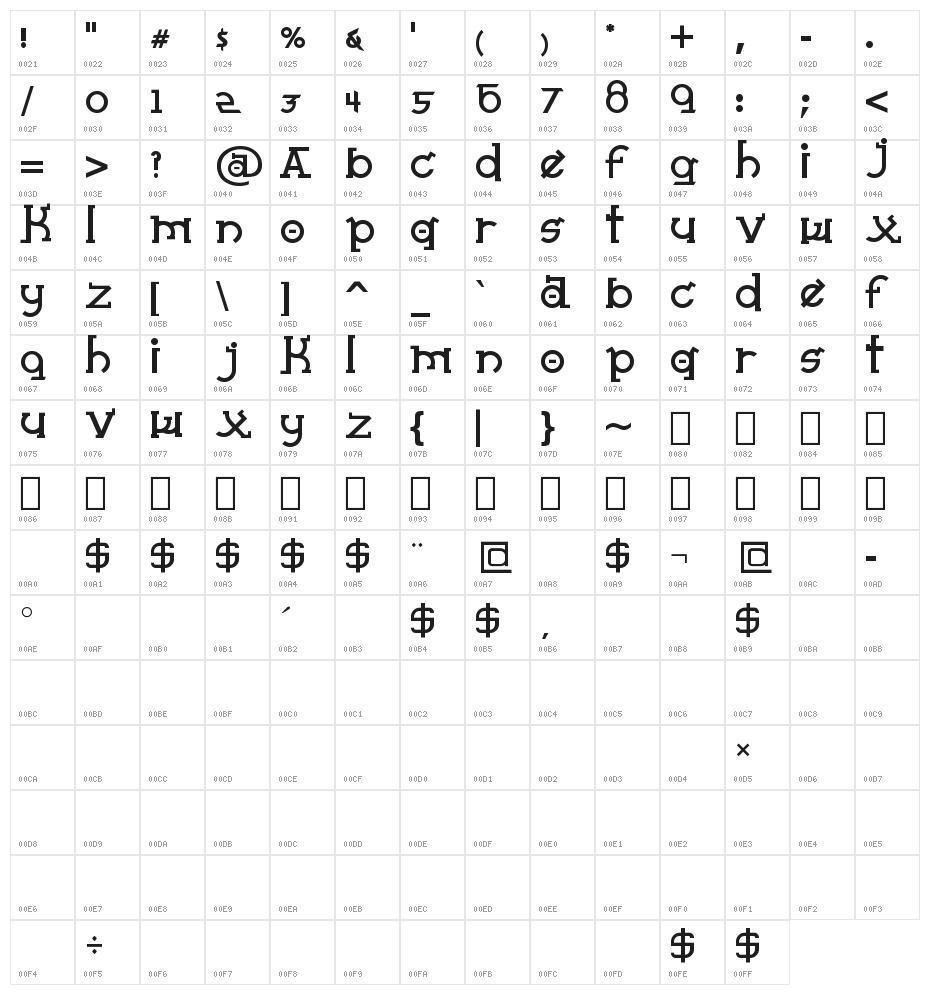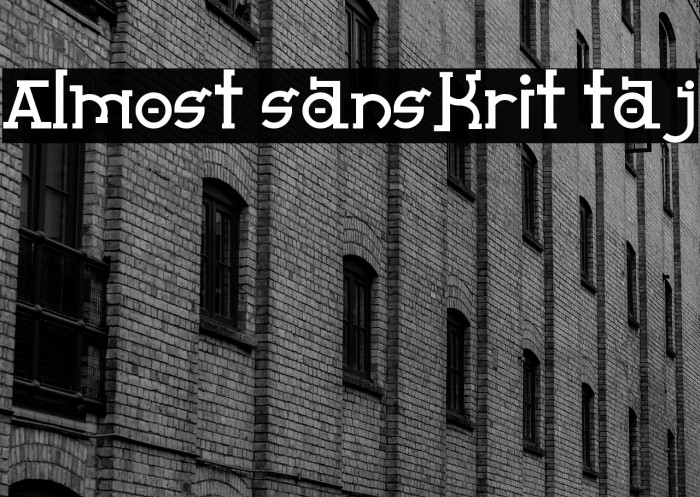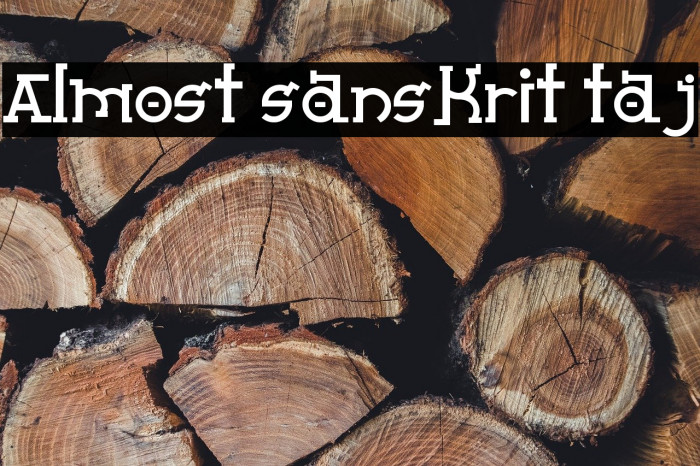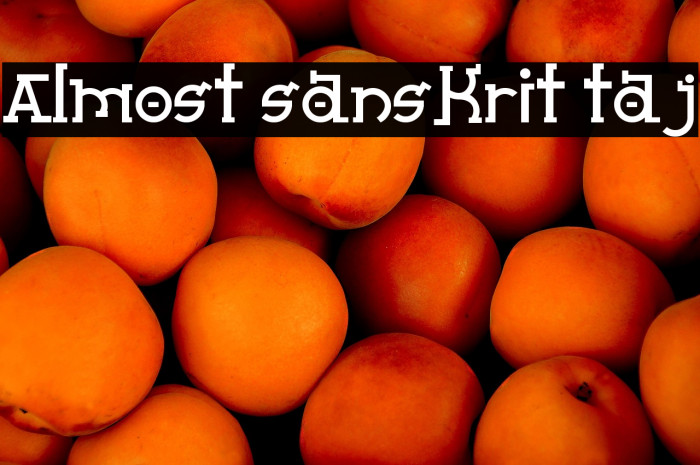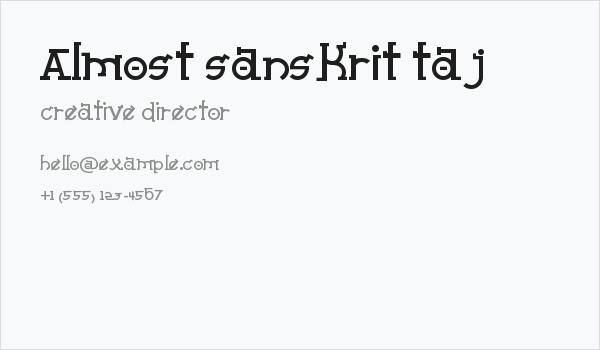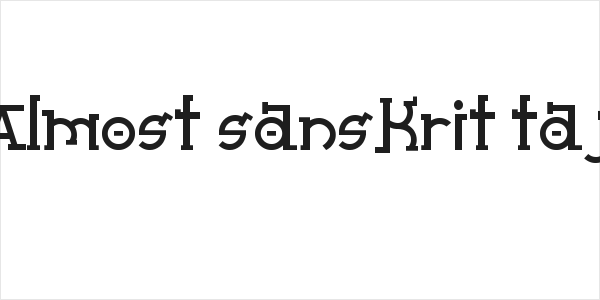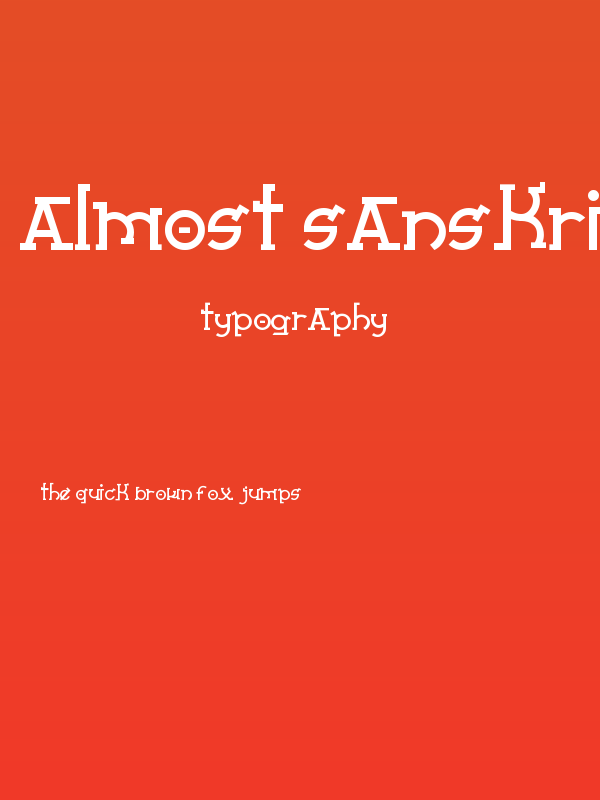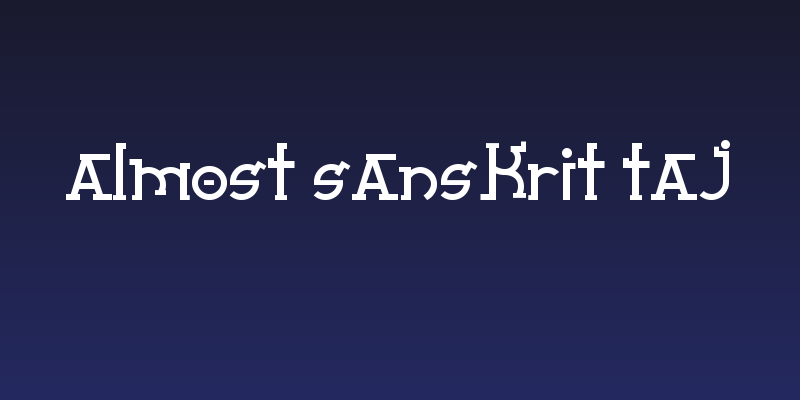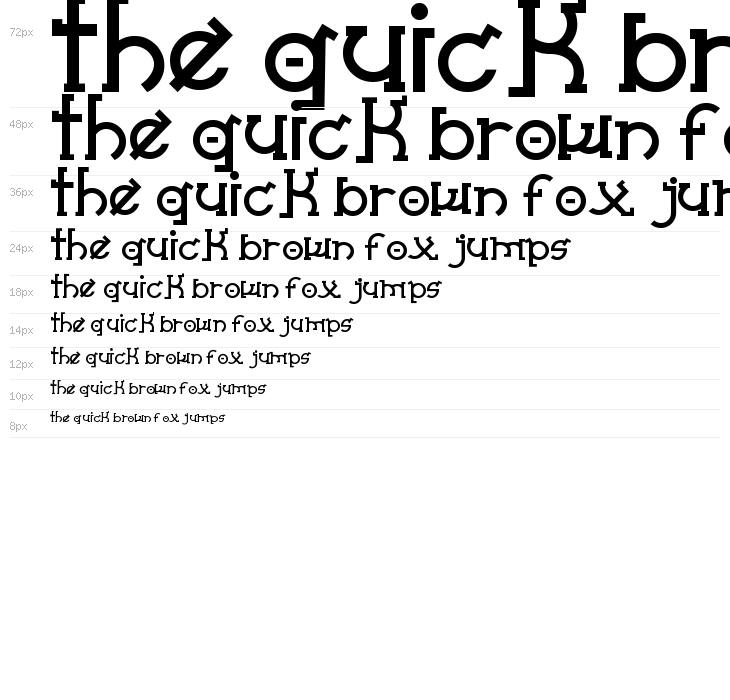
Almost Sanskrit Taj Font
Almost Sanskrit Taj Description
This font features a unique blend of geometric and decorative elements, reminiscent of traditional Sanskrit script with a modern twist. The characters are bold and angular, with distinct serifs that add a touch of elegance. The uppercase letters are particularly striking, with sharp angles and a strong presence. The lowercase letters maintain the same aesthetic, ensuring consistency throughout the typeface. Numbers and special characters are designed with the same attention to detail, making them stand out while remaining cohesive with the overall style. The font's boldness and decorative flair make it ideal for projects that require a strong visual impact.